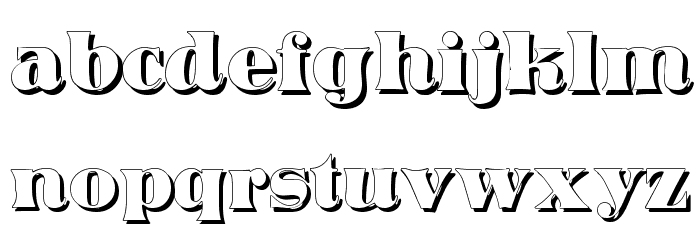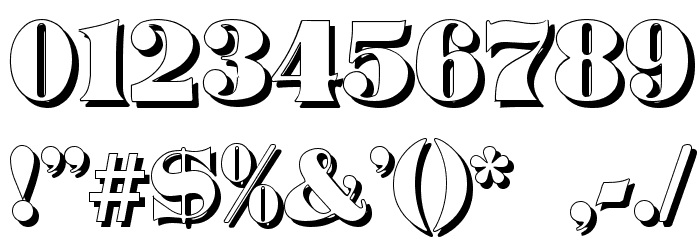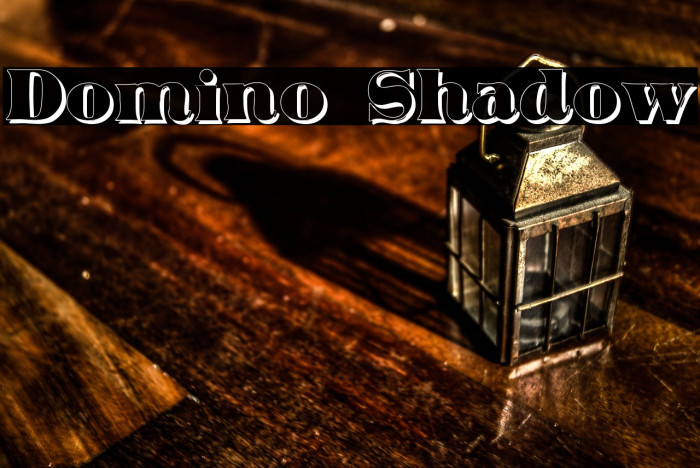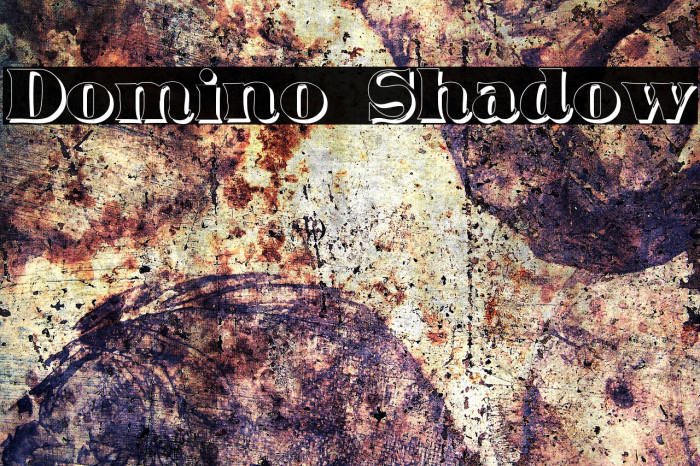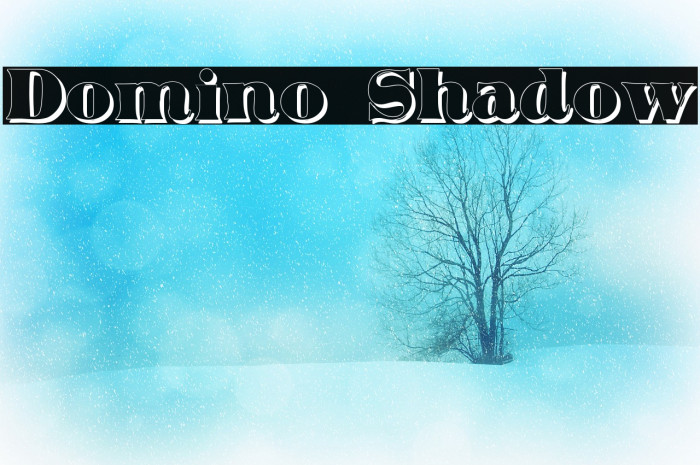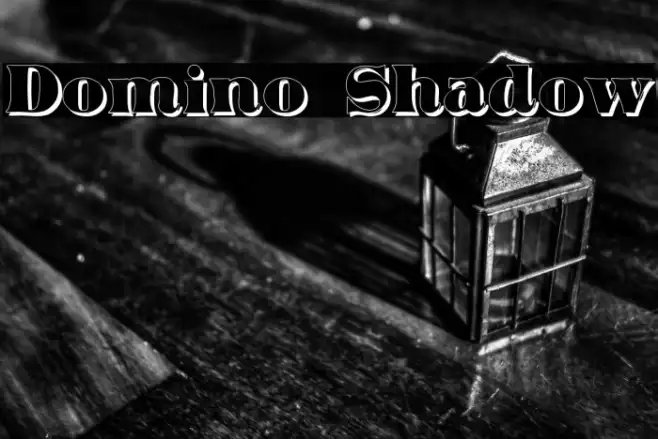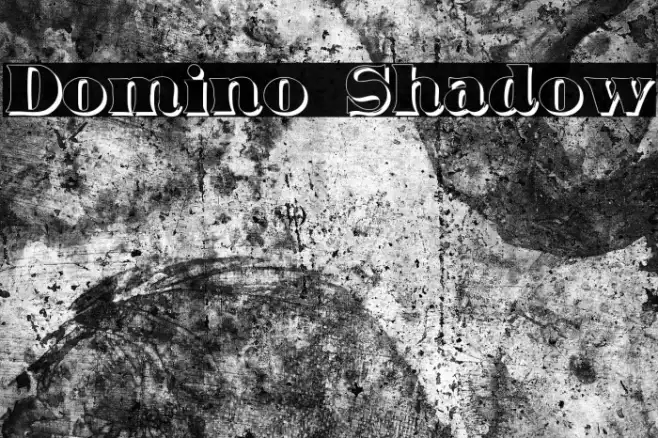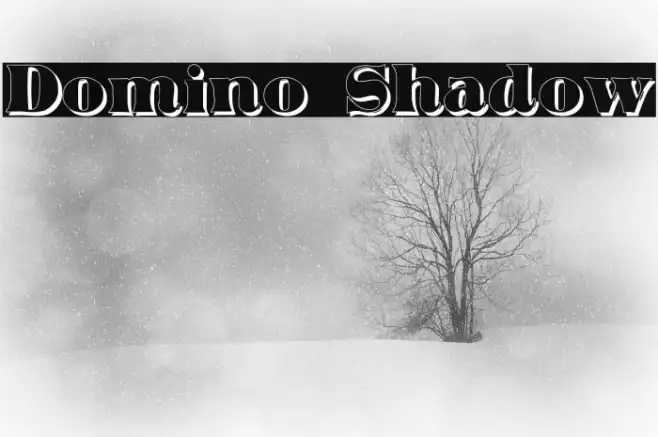
Domino Shadow Font
This font features a bold and striking design with a three-dimensional shadow effect that gives it a unique, eye-catching appearance. The uppercase and lowercase letters are crafted with a strong serif style, adding a classic touch to the overall modern aesthetic. The numbers and special characters maintain the same boldness and shadow effect, ensuring consistency across all glyphs. The font's design is perfect for creating a dramatic impact, making it ideal for headlines or titles that need to stand out. Its distinct shadow effect adds depth and dimension, making it suitable for various creative projects.
A bold serif font with a 3D shadow effect, perfect for impactful headlines.
- Proposed Projects: Ideal for posters, logos, book covers, and any design requiring a bold, attention-grabbing font.